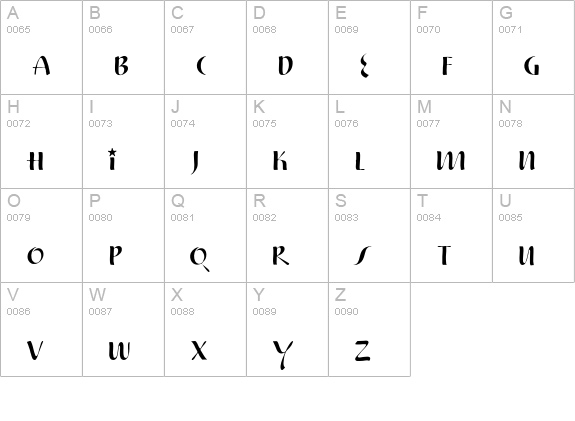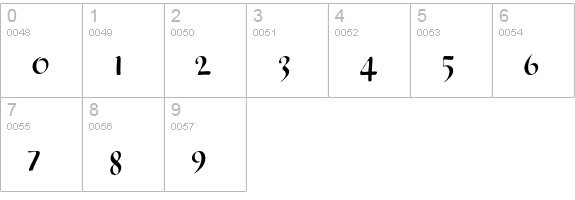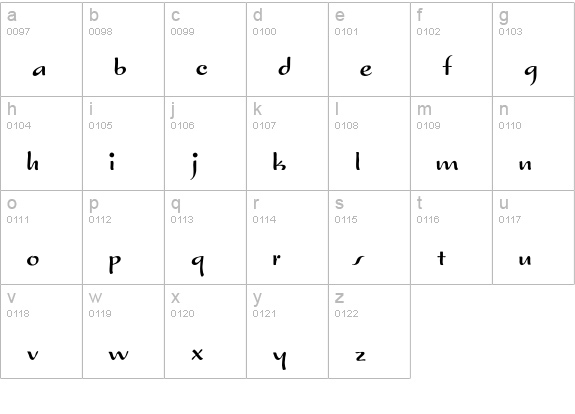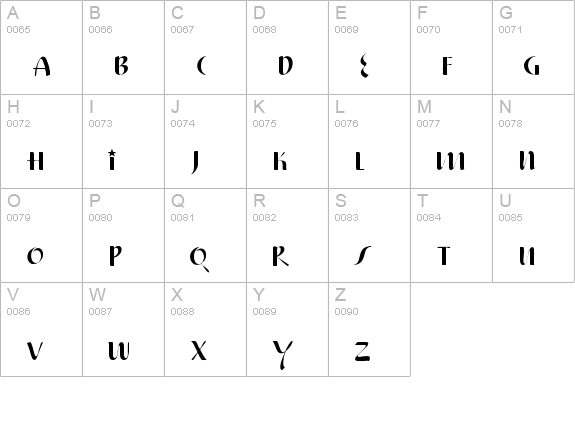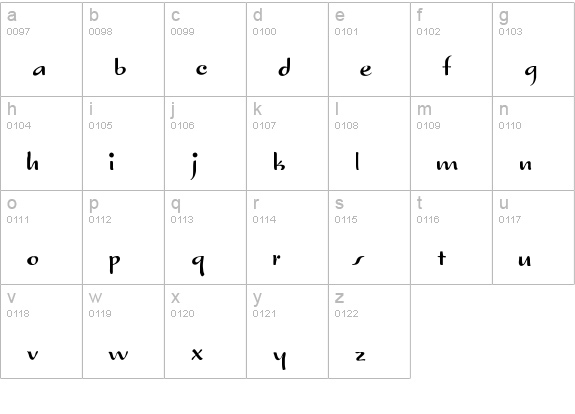
TruStarImperial Font Details
Introducing TruStarImperial, a magnificent font that effortlessly combines elegance with a touch of regality. This font exudes a sense of grandeur and sophistication, making it the perfect choice for projects that require a touch of class. TruStarImperial is meticulously crafted, with each letter lovingly designed to capture the essence of luxury. Every curve and stroke is carefully considered, resulting in a font that is both visually striking and incredibly versatile. But what sets TruStarImperial apart is that it is not only a font of exceptional quality, but it is also free for all to enjoy. Yes, you read that right – this stunning font is freely available to download at FontsMarket.com. Now, you can elevate your designs and projects without breaking the bank. Whether you are creating invitations for a high-end event, designing a logo for a prestigious brand, or crafting a visually captivating website, TruStarImperial is the perfect choice. Its timeless appeal and effortless elegance are sure to leave a lasting impression on anyone who encounters it. With TruStarImperial, you have the power to transform your creative vision into a masterpiece. Its clean lines and exquisite details make it a truly versatile font, capable of enhancing any project, from print to digital. So why wait? Experience the beauty and allure of TruStarImperial for yourself. Download it freely at FontsMarket.com and unlock a world of possibilities. Elevate your designs, captivate your audience, and make an unforgettable statement with TruStarImperial – the font that combines elegance with regality, all within your reach.